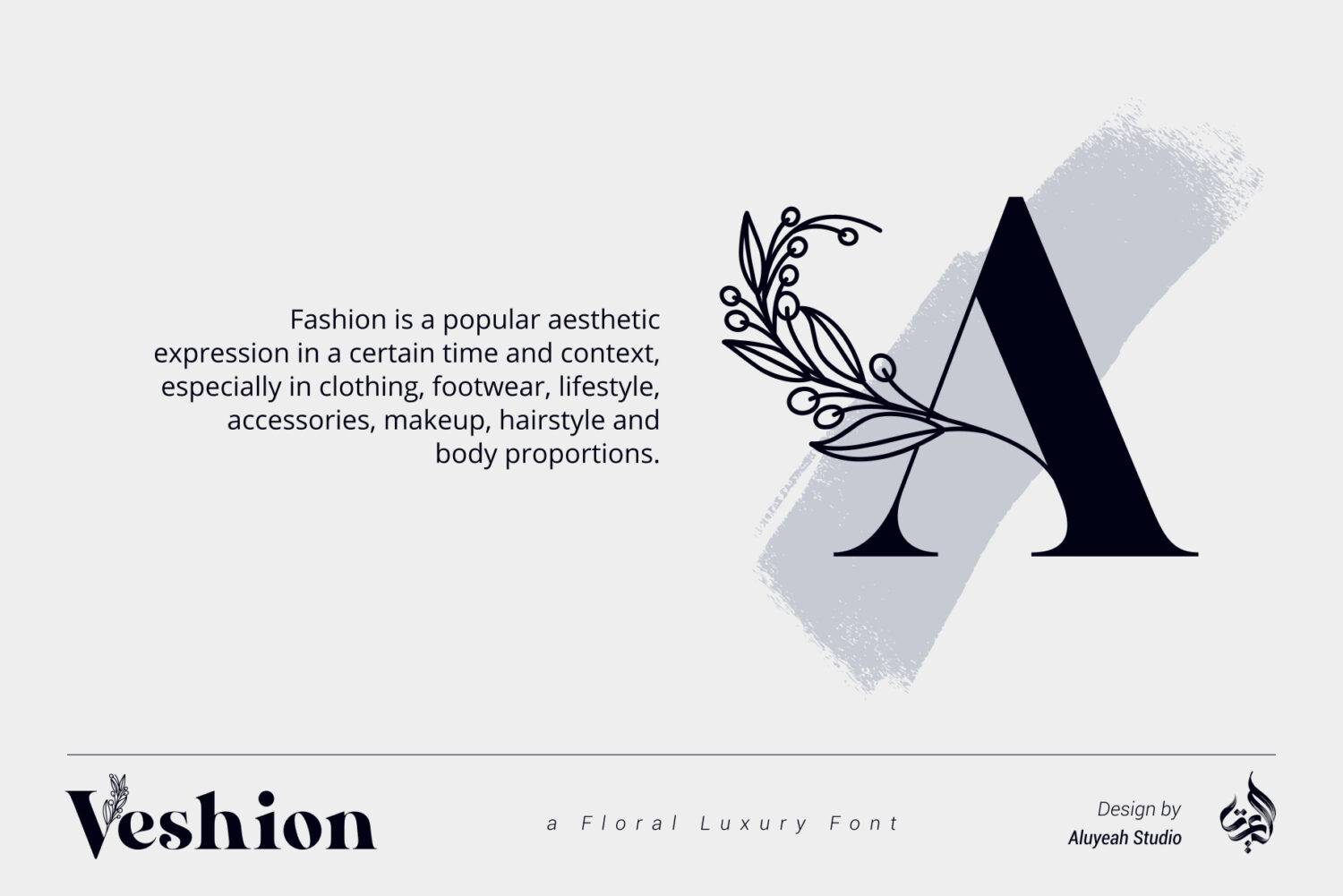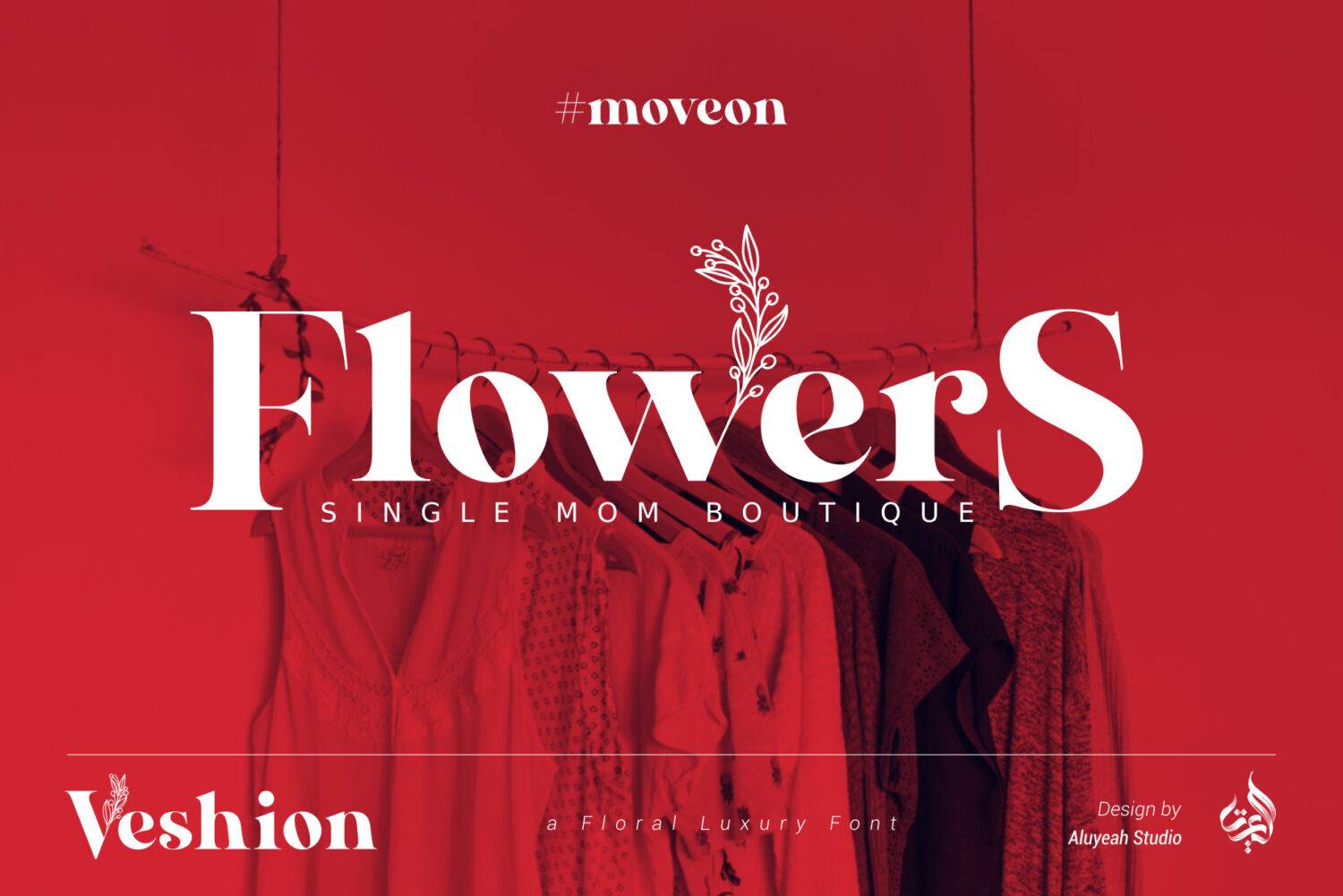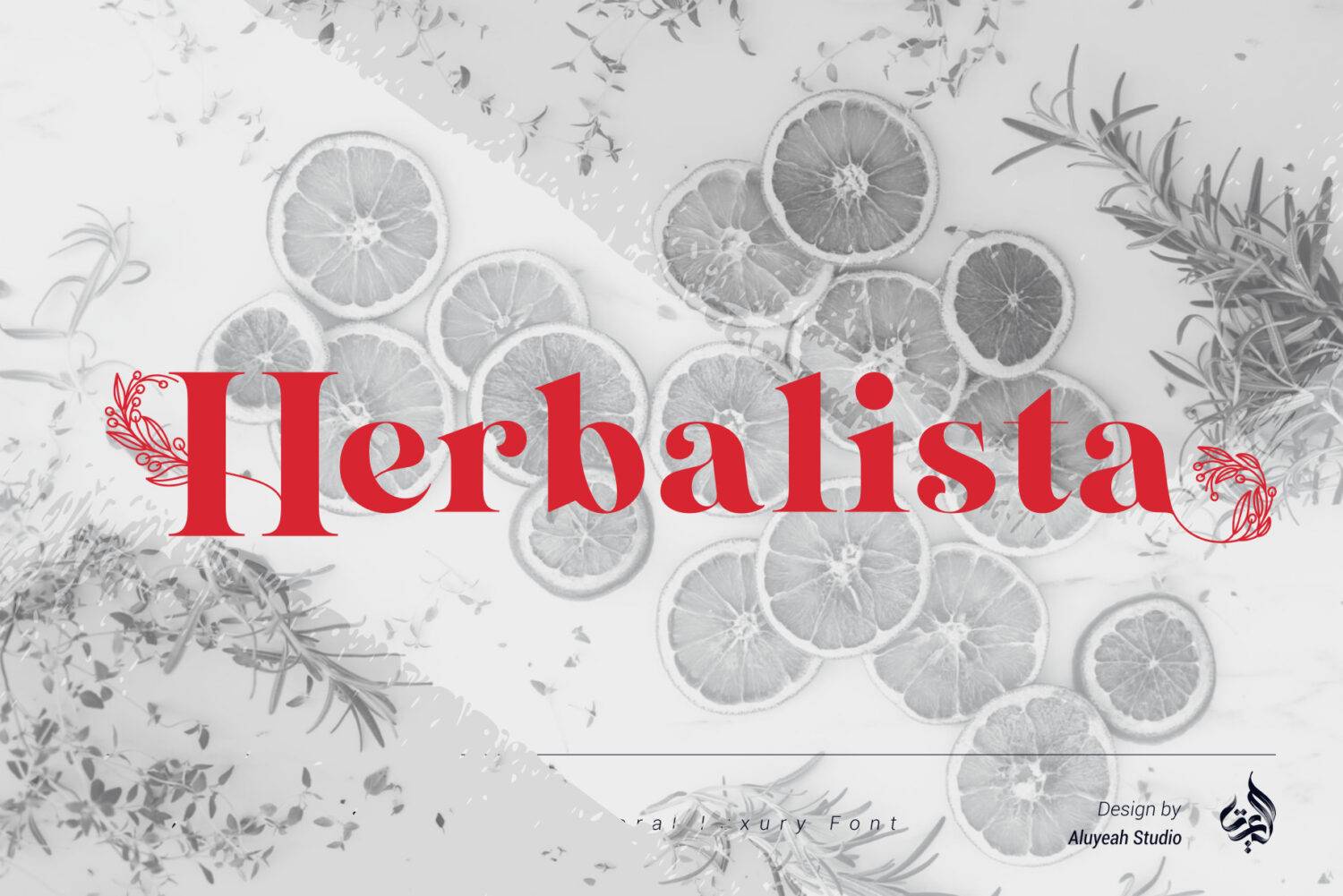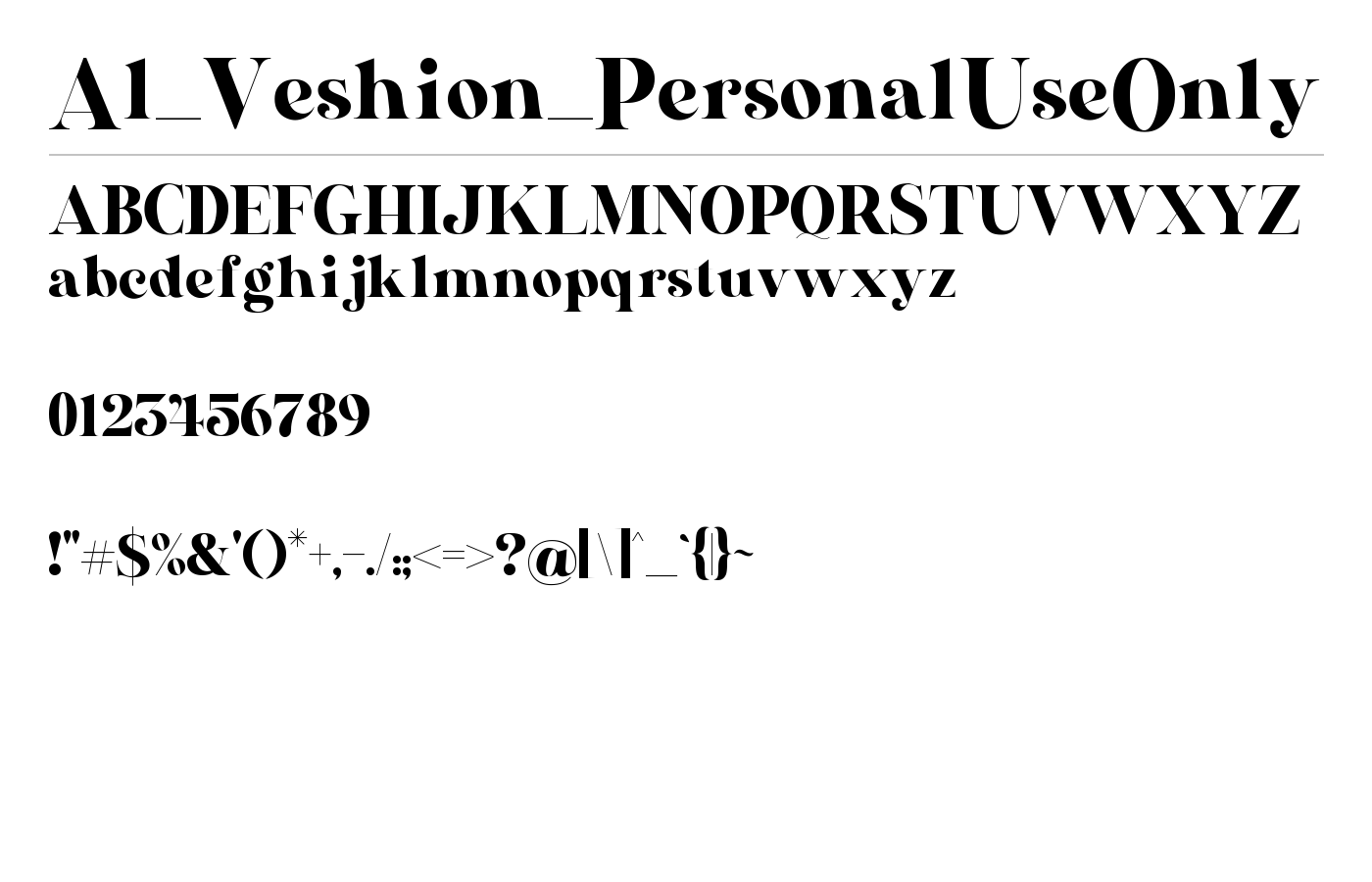
Veshion is a serif font with a bold, elegant presence characterized by high contrast between thick and thin strokes and sharp, refined serifs, giving it a luxurious and sophisticated feel. Its distinct letterforms, including a double-story "g" and unique details like the stylized "Q" tail, make it ideal for fashion branding, editorial headlines, and upscale logo design where a strong, classy statement is needed.
Veshion Font
About Veshion Font